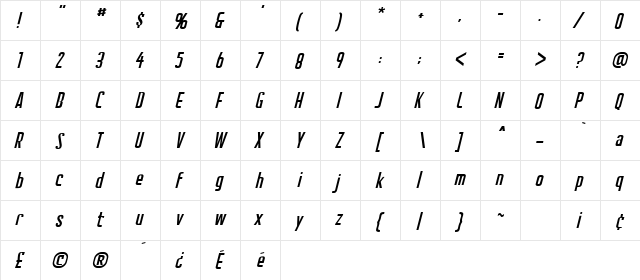
CreatorCredits BB Italic
| Foundry | Nate Piekos. Blambot.com |
| Designer | Nate Piekos |
Design Context for CreatorCredits BB Typeface
CreatorCredits BB offers clean, dependable letterforms without strong stylistic allegiance, making it a practical choice for designers who need flexibility. The slanted form adds forward momentum and visual energy.
Pro Tip: Use CreatorCredits BB for emphasis, pull quotes, and subheadings where its slanted energy can add rhythm to the layout.